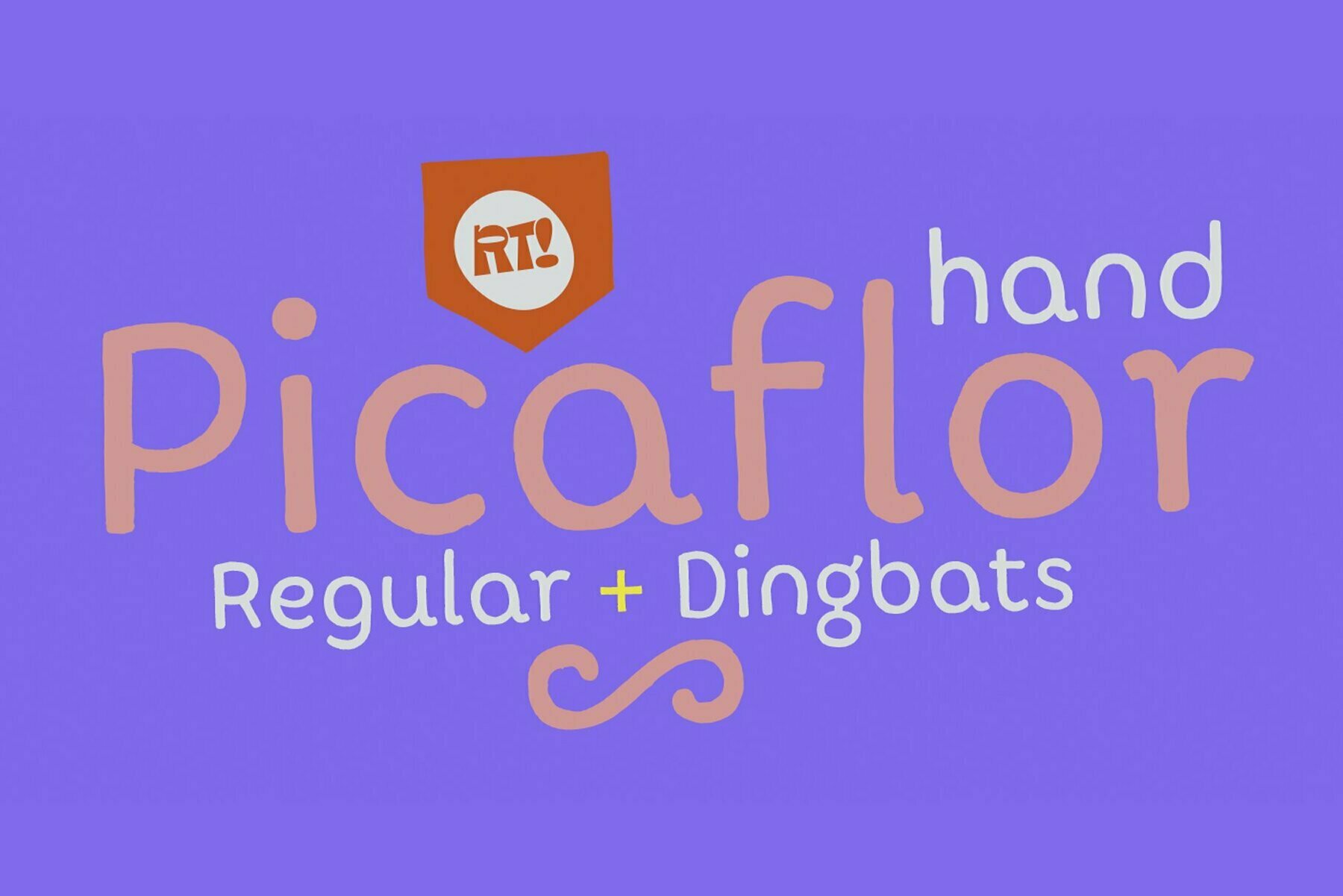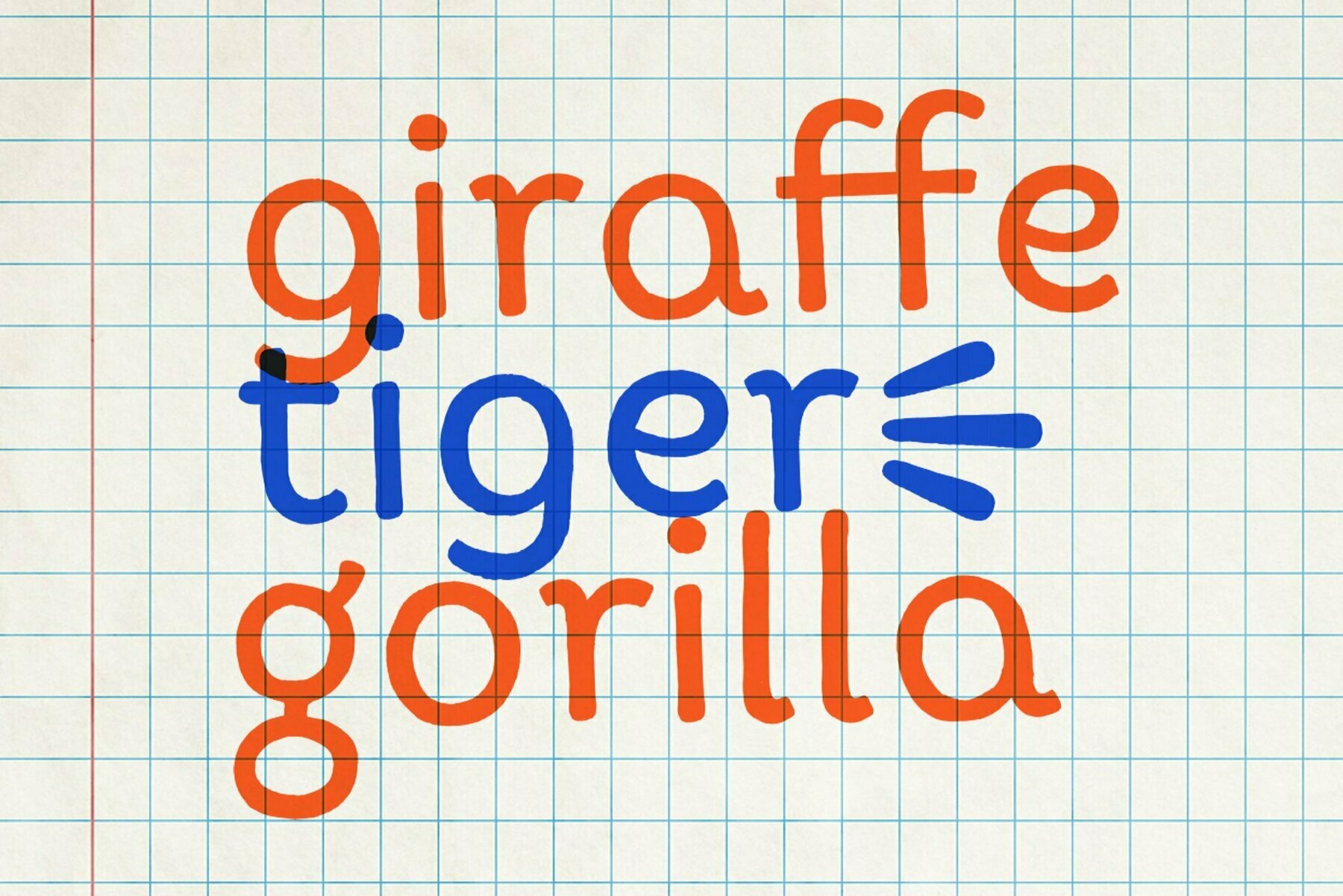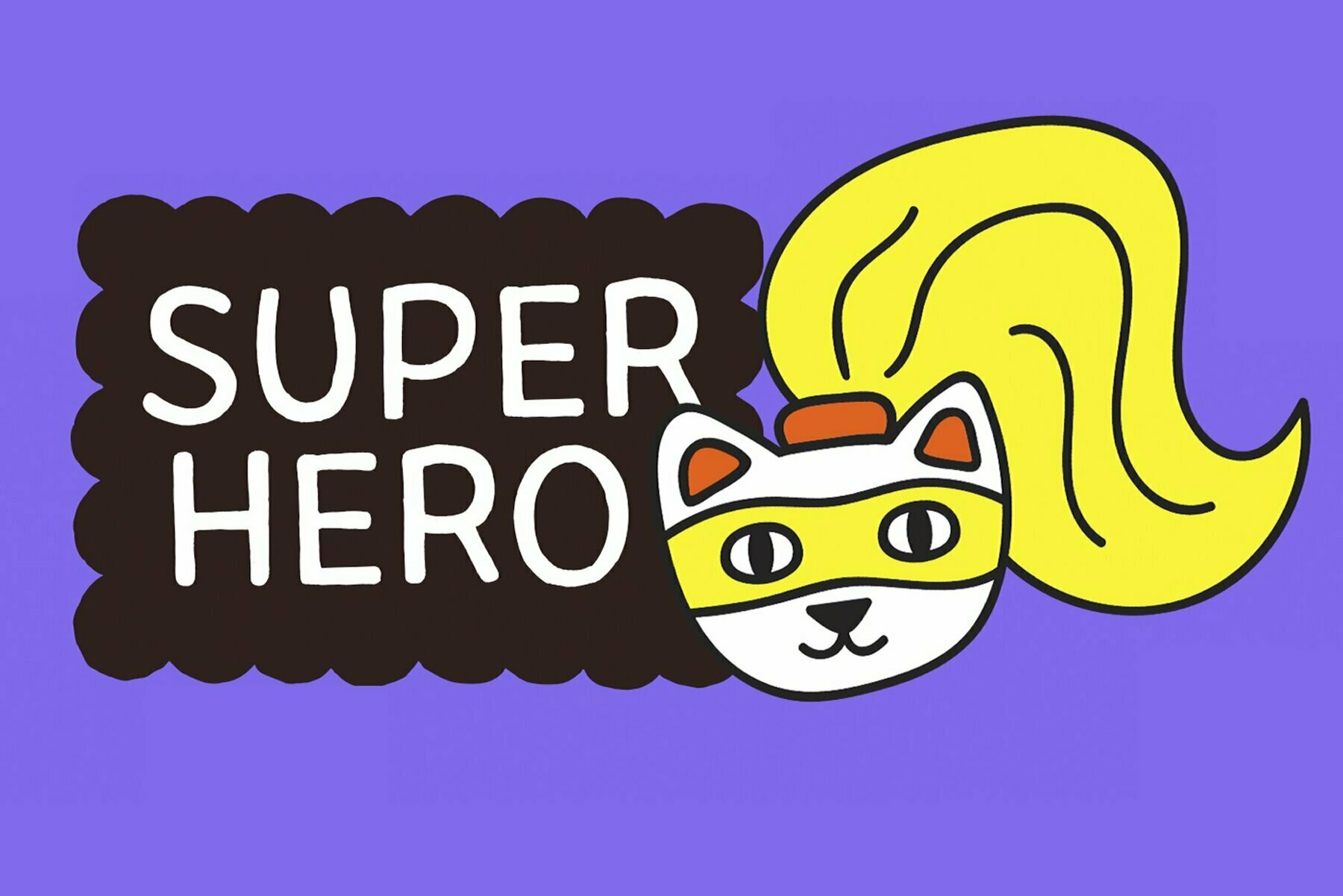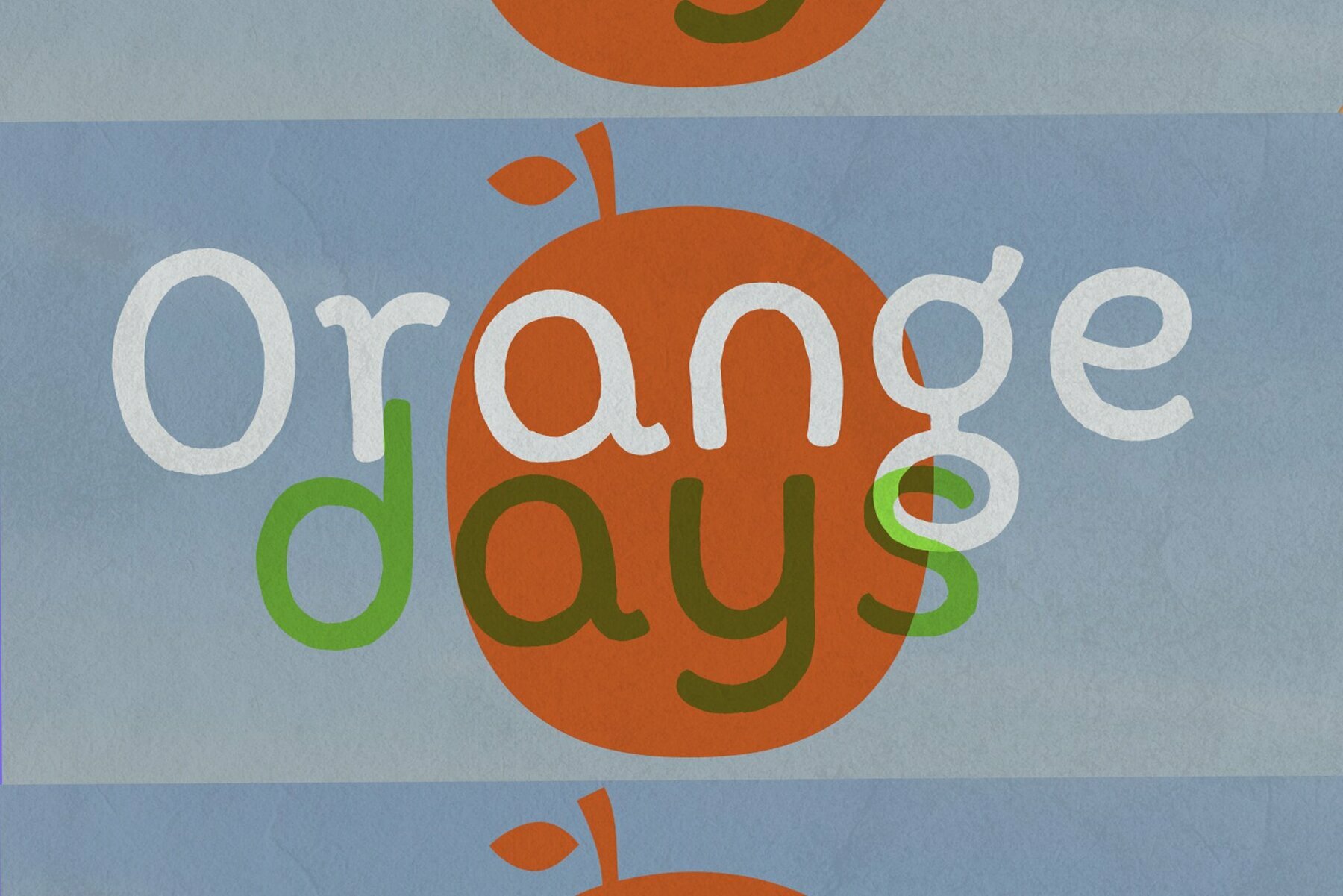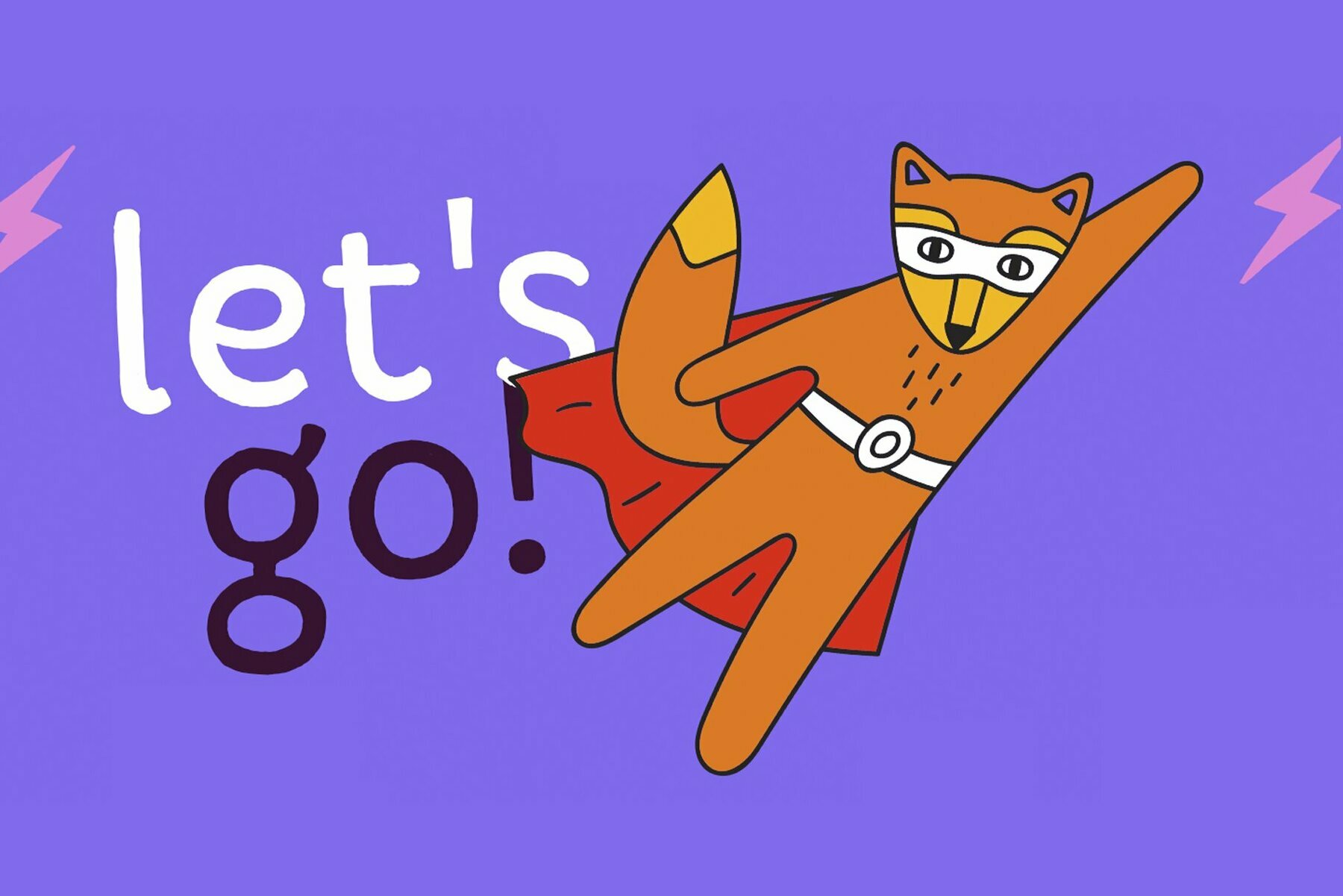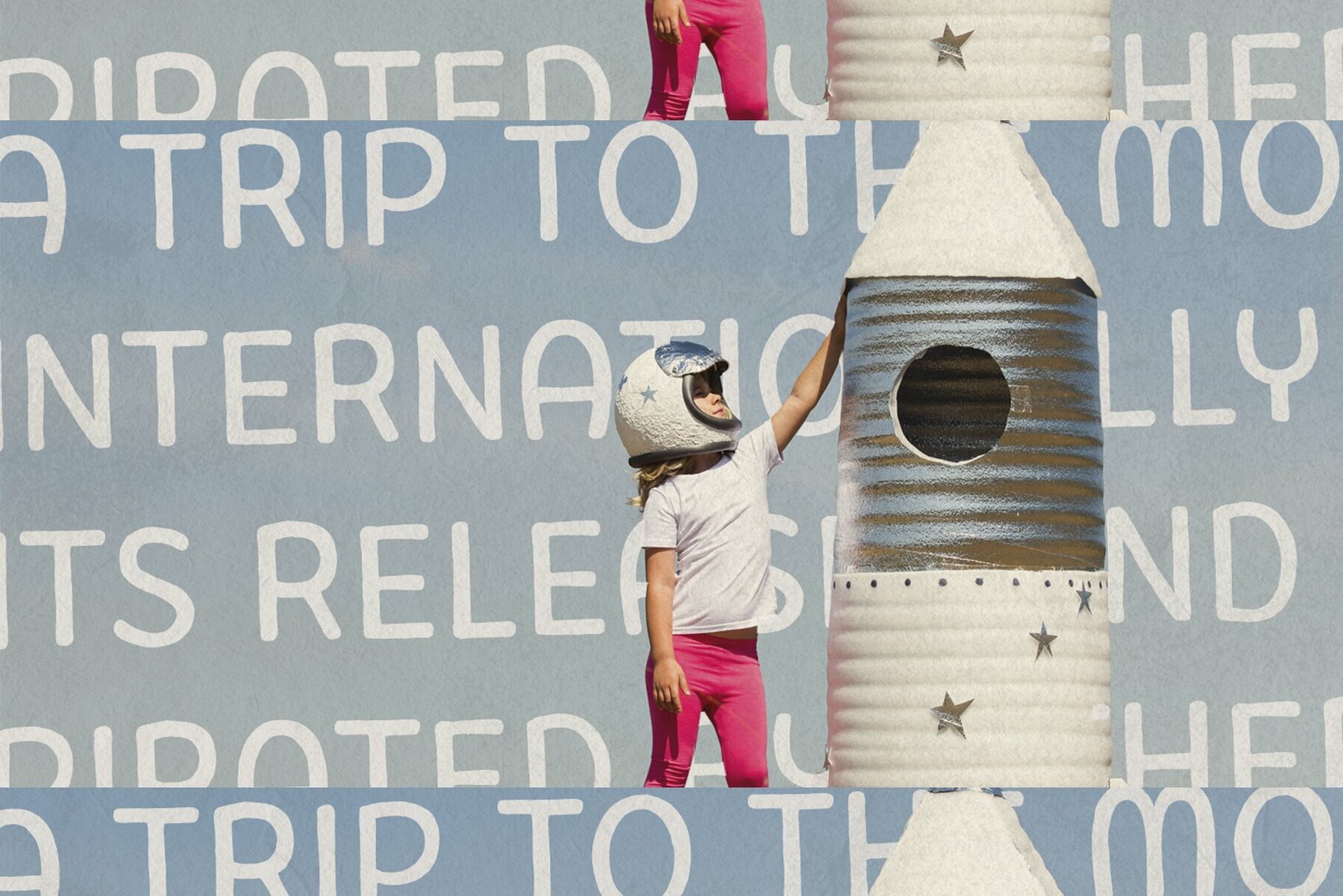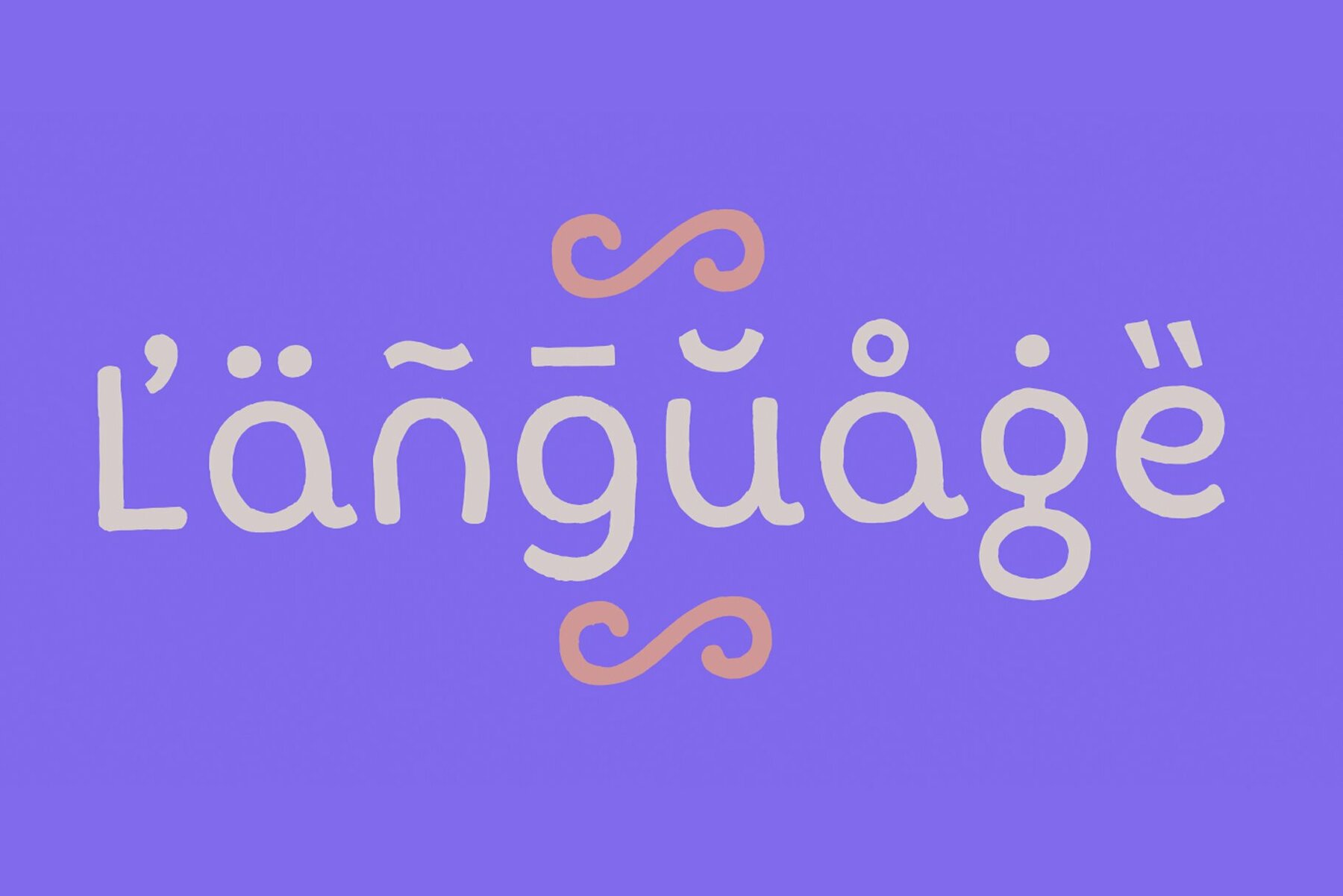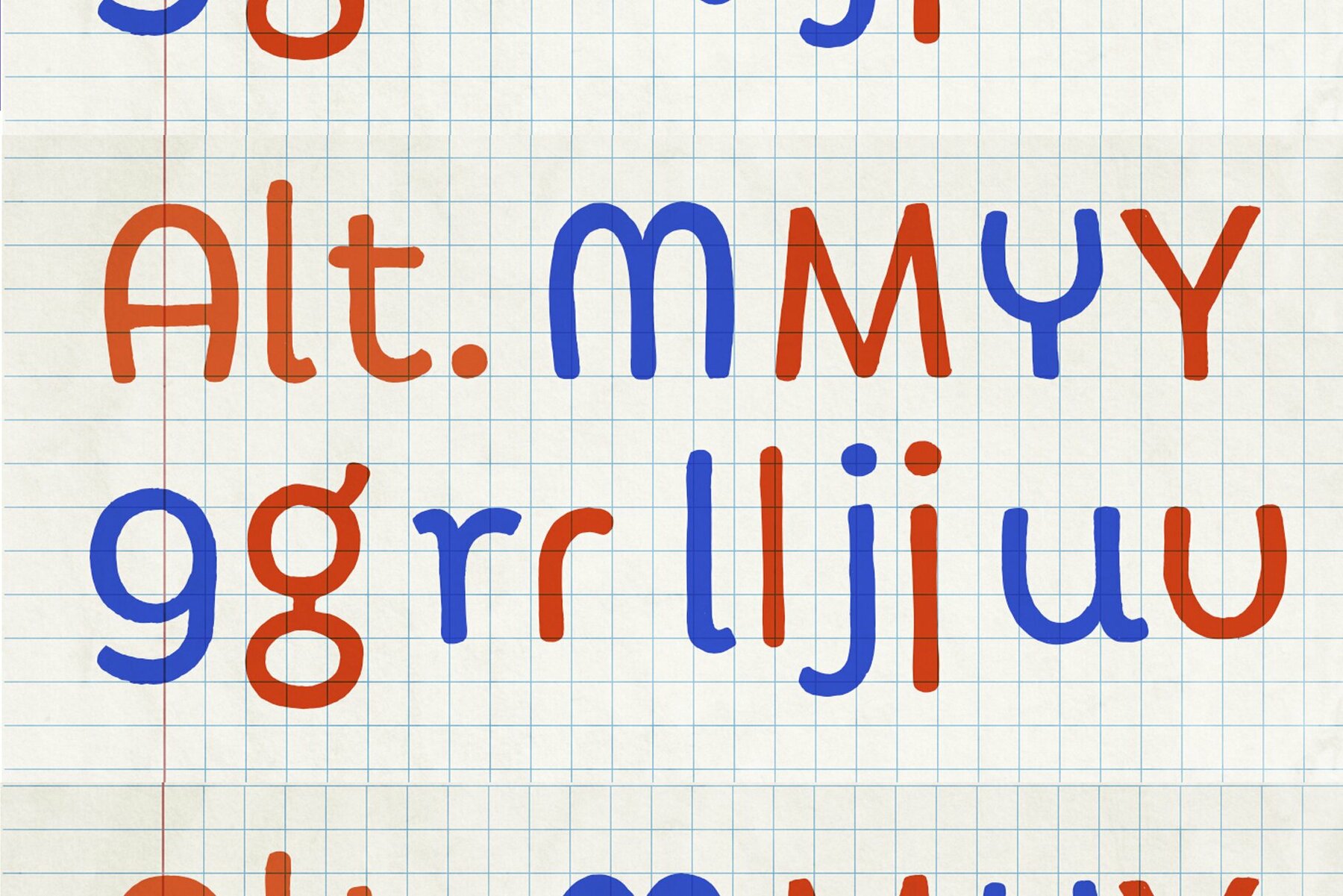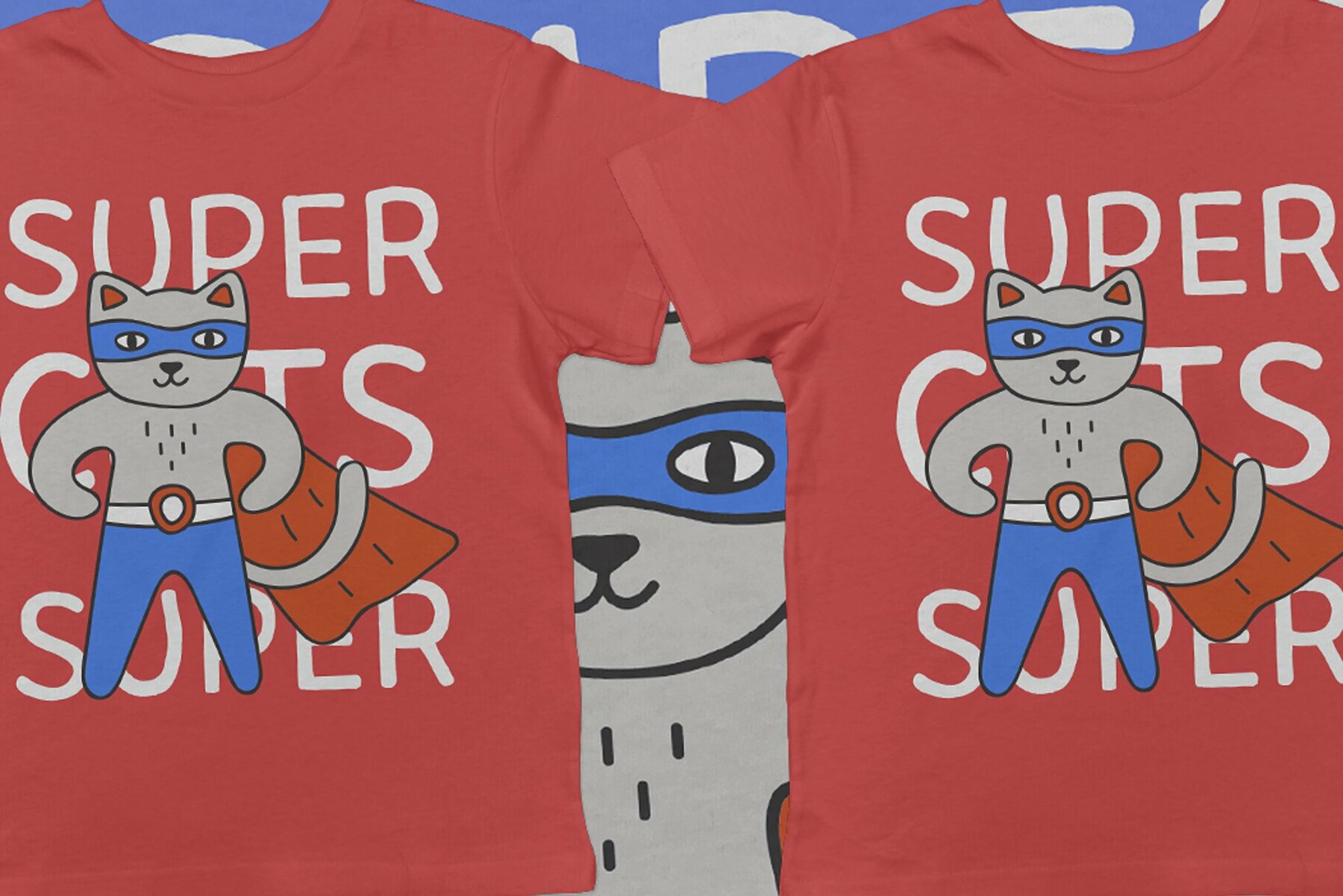
Picaflor Hand Font
Picaflor Hand One
Picaflor Hand Two
Picaflor Hand, is a completely handmade variant special for short titles, it contains an alternative set and a set of ornaments that can enhance the design.